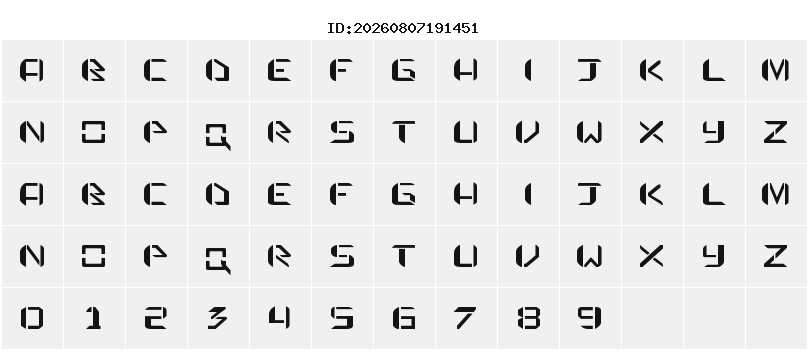
praetorian defiance Preview
About praetorian defiance.ttf
praetorian defiance.ttf is a modern, elegant sans-serif font designed for ultimate readability and visual harmony. Perfect for branding, headlines, web design, and print materials.